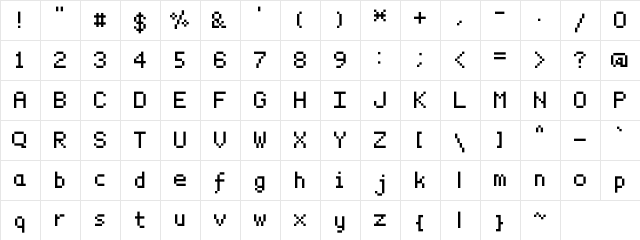
GraphicPixel Regular
Design Context for GraphicPixel Typeface
GraphicPixel is rooted in pixel-grid construction, making it a natural fit for game UI, retro computing aesthetics, and digital nostalgia projects.
A natural choice for retro game titles, chiptune music branding, 8-bit UI, and digital nostalgia projects.
Pro Tip: Pair GraphicPixel with flat colour palettes and simple geometric UI elements to reinforce its digital aesthetic.